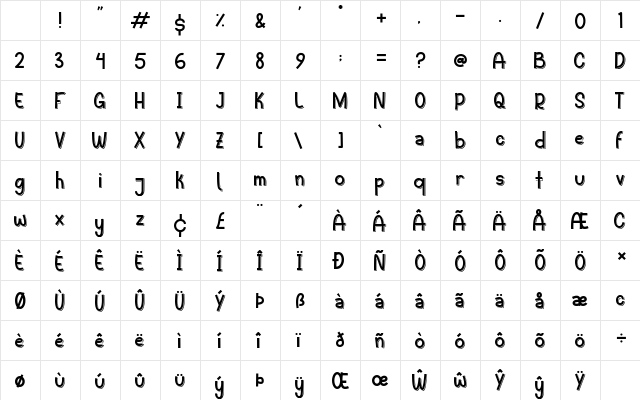
Dinoko is a composed and adaptable typeface that performs quietly and consistently across a wide range of design contexts.
Pro Tip: Use Dinoko in both headline and body roles to test its range before committing to a single application.